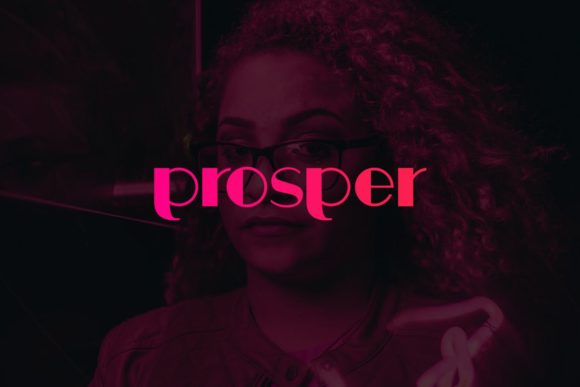
Unleash a world of captivating designs with Prosper Font, a masterpiece crafted by the renowned foundry, Webhance. Bold yet exquisitely graceful, Prosper is the ultimate choice for designers seeking to ignite their creativity and leave an unforgettable mark.
Immerse yourself in a symphony of style with Prosper's captivating display qualities. With every stroke, experience a harmonious blend of confidence and elegance that will elevate your creations to new heights. Whether you're crafting a commanding logo that demands attention or designing a captivating poster that captivates hearts, Prosper empowers you to weave a tapestry of visual enchantment.
In a realm saturated with ordinary fonts, Prosper emerges as a radiant beacon of originality. Its meticulously crafted curves and sharp angles dance together in perfect unison, creating a visual masterpiece that will make your designs soar above the mundane. Embrace the power of Prosper and watch as your creations blossom into vibrant expressions of your imagination.
Prosper is not merely a font; it's an invitation to embark on an extraordinary design journey. Its versatility knows no bounds, seamlessly adapting to a myriad of creative endeavors. From breathtaking branding logos that ignite recognition to captivating posters that ignite emotions, Prosper empowers you to weave a tapestry of visual enchantment that will leave an enduring legacy.
As you delve into the depths of Prosper's design, prepare to be captivated by its intricate details and impeccable execution. Each letterform has been meticulously crafted to evoke a sense of both power and grace, ensuring that your designs radiate an aura of sophistication and unforgettable charm.
With Prosper at your fingertips, you unlock a font that is more than just a collection of characters; it's a conduit for your creativity, an instrument that will transform your designs into works of art. Embrace the limitless possibilities of Prosper and unleash the full potential of your artistic vision.